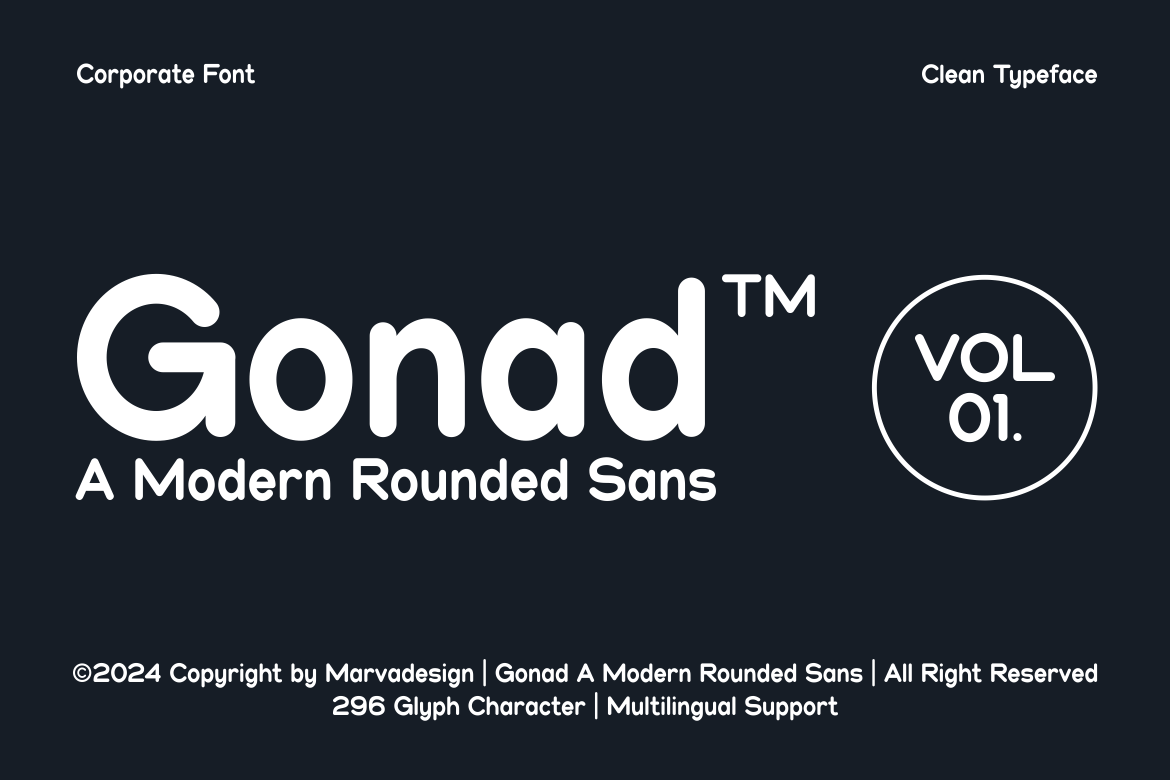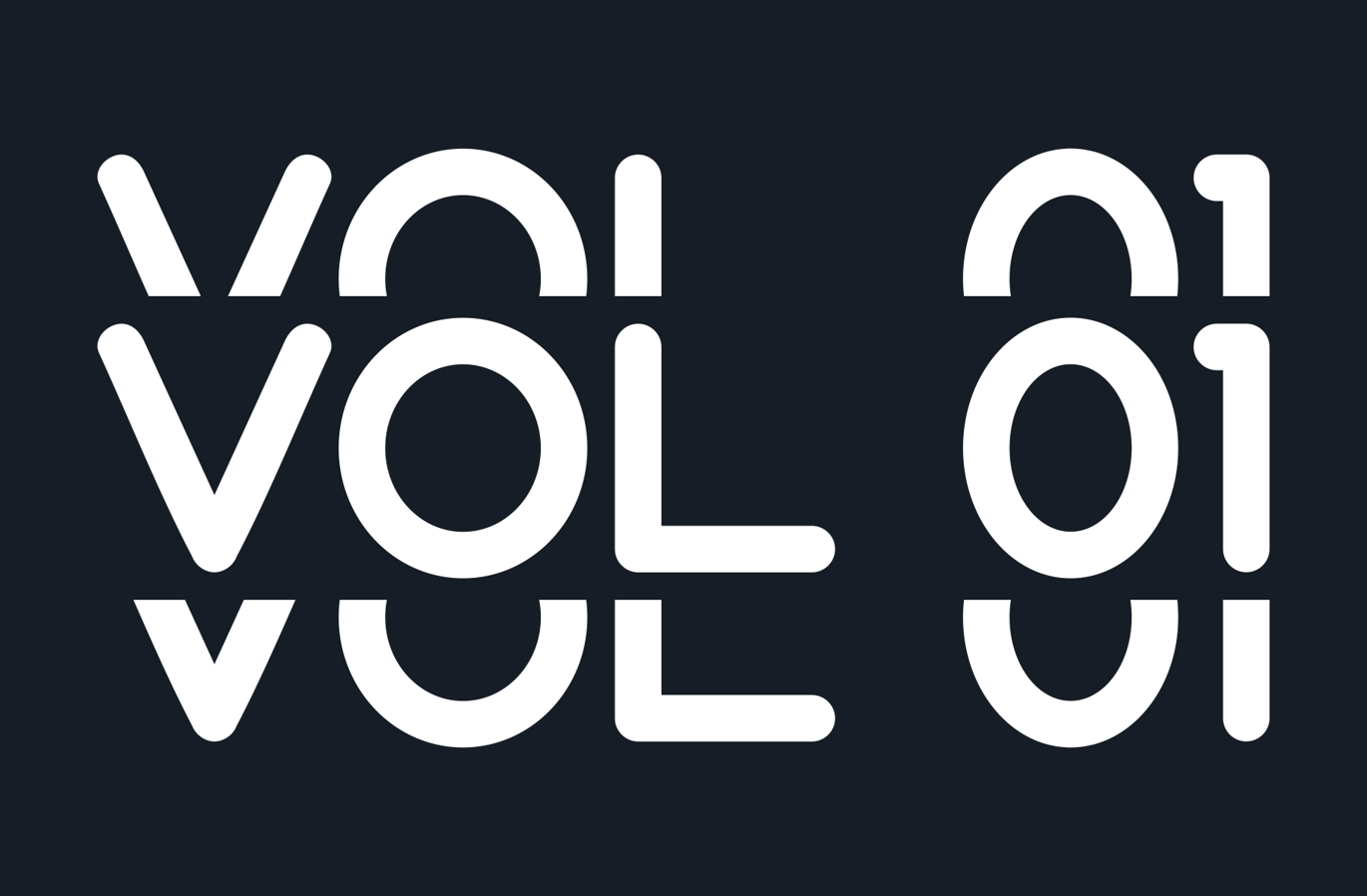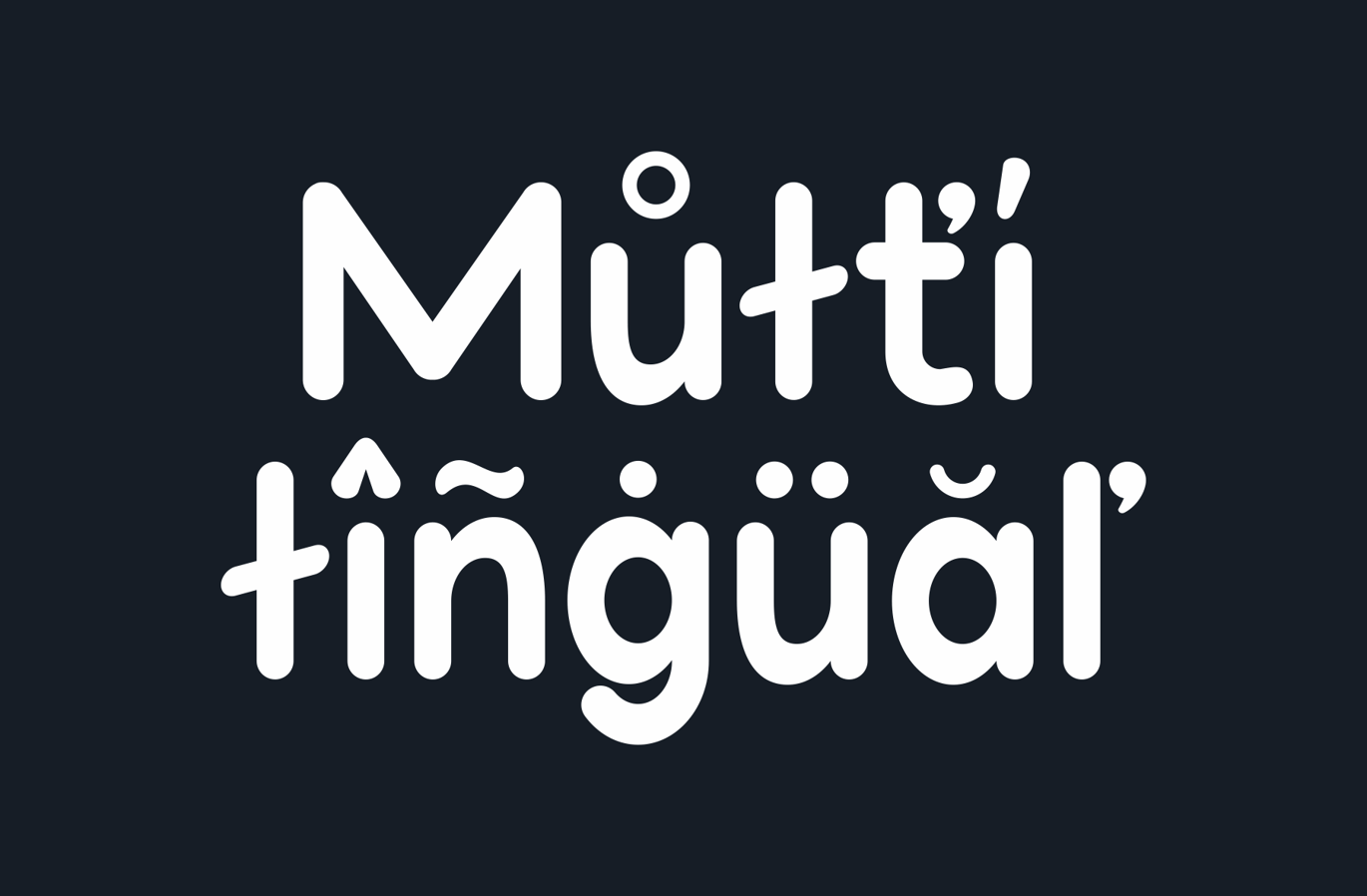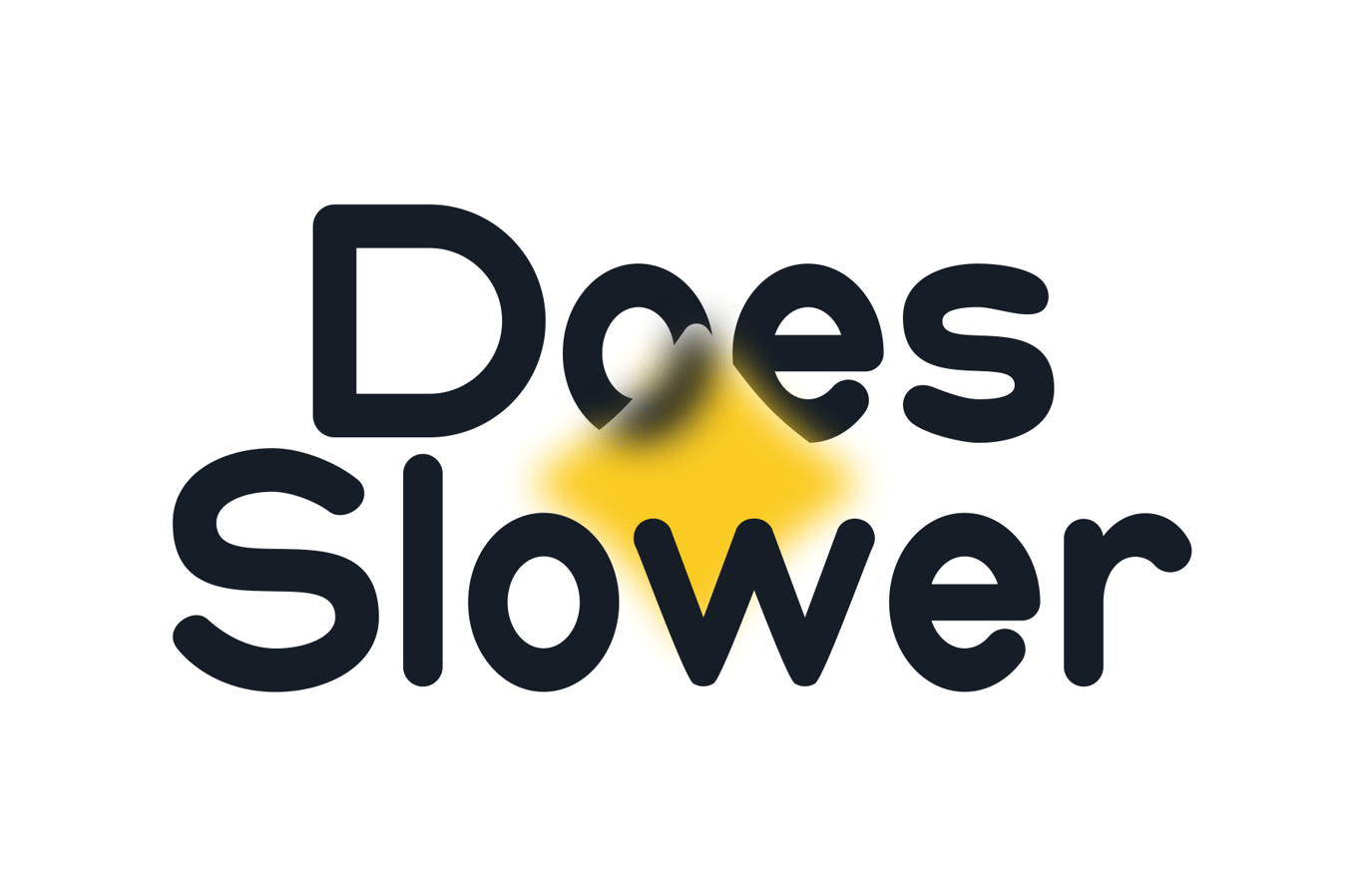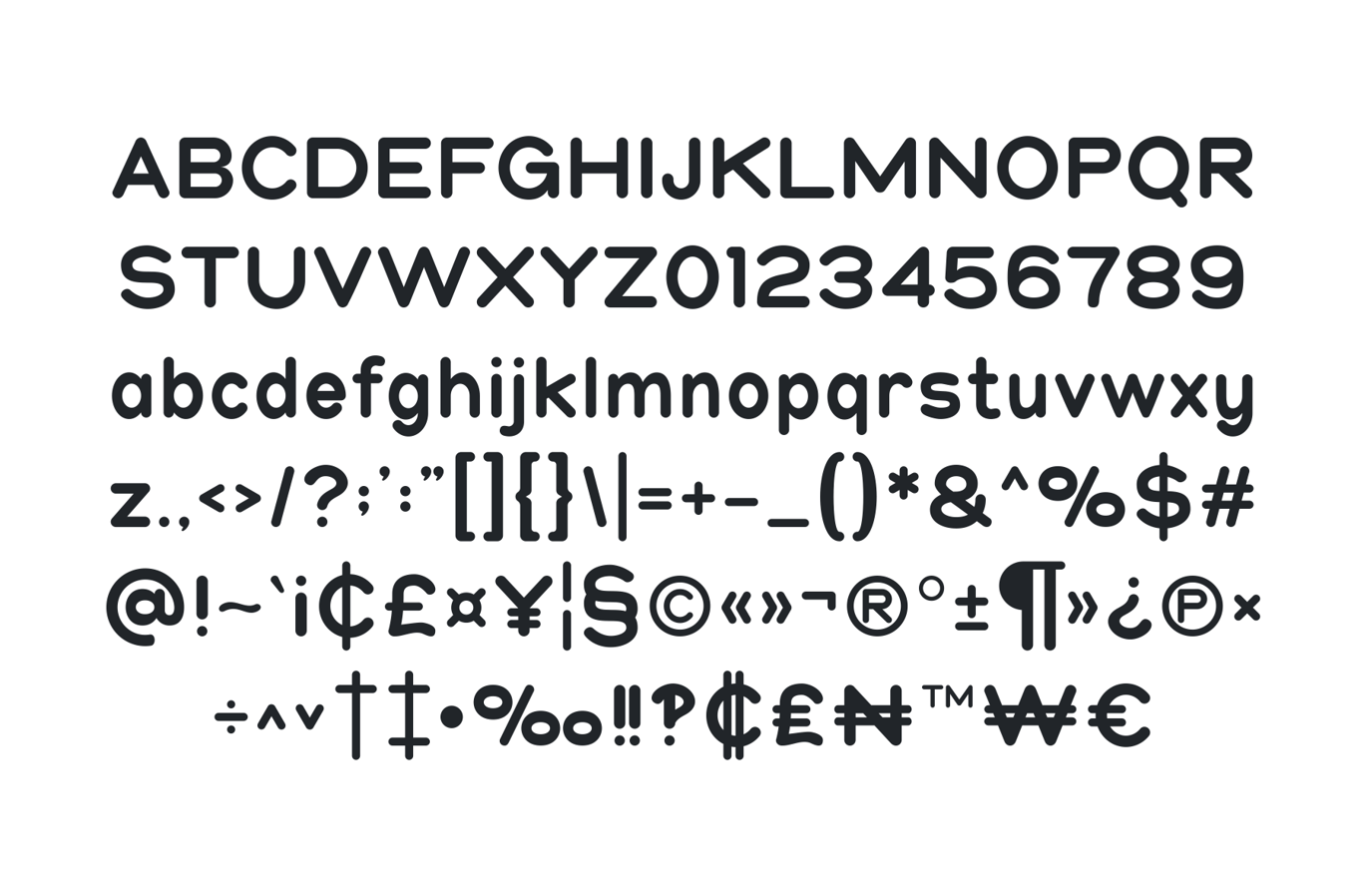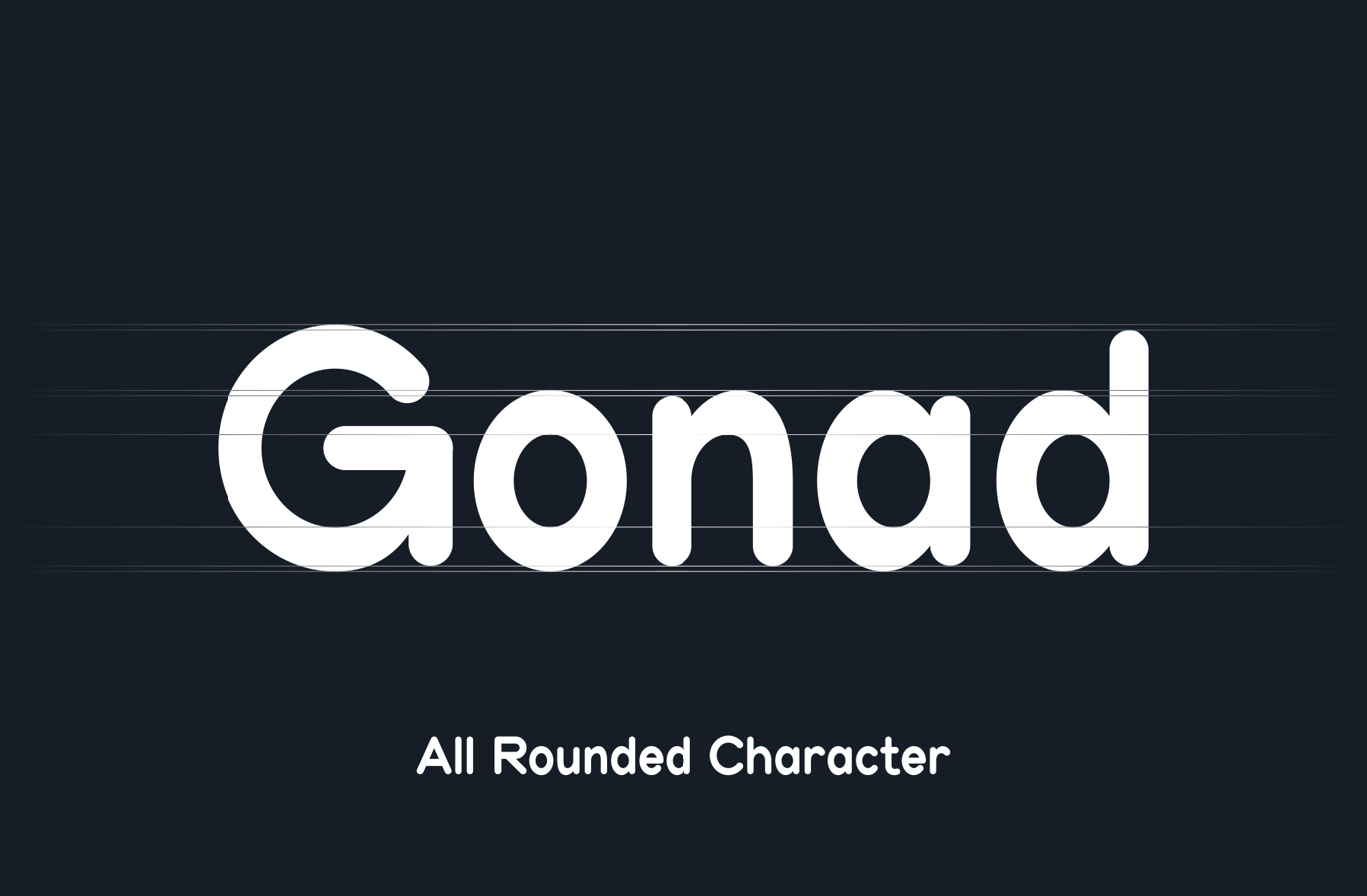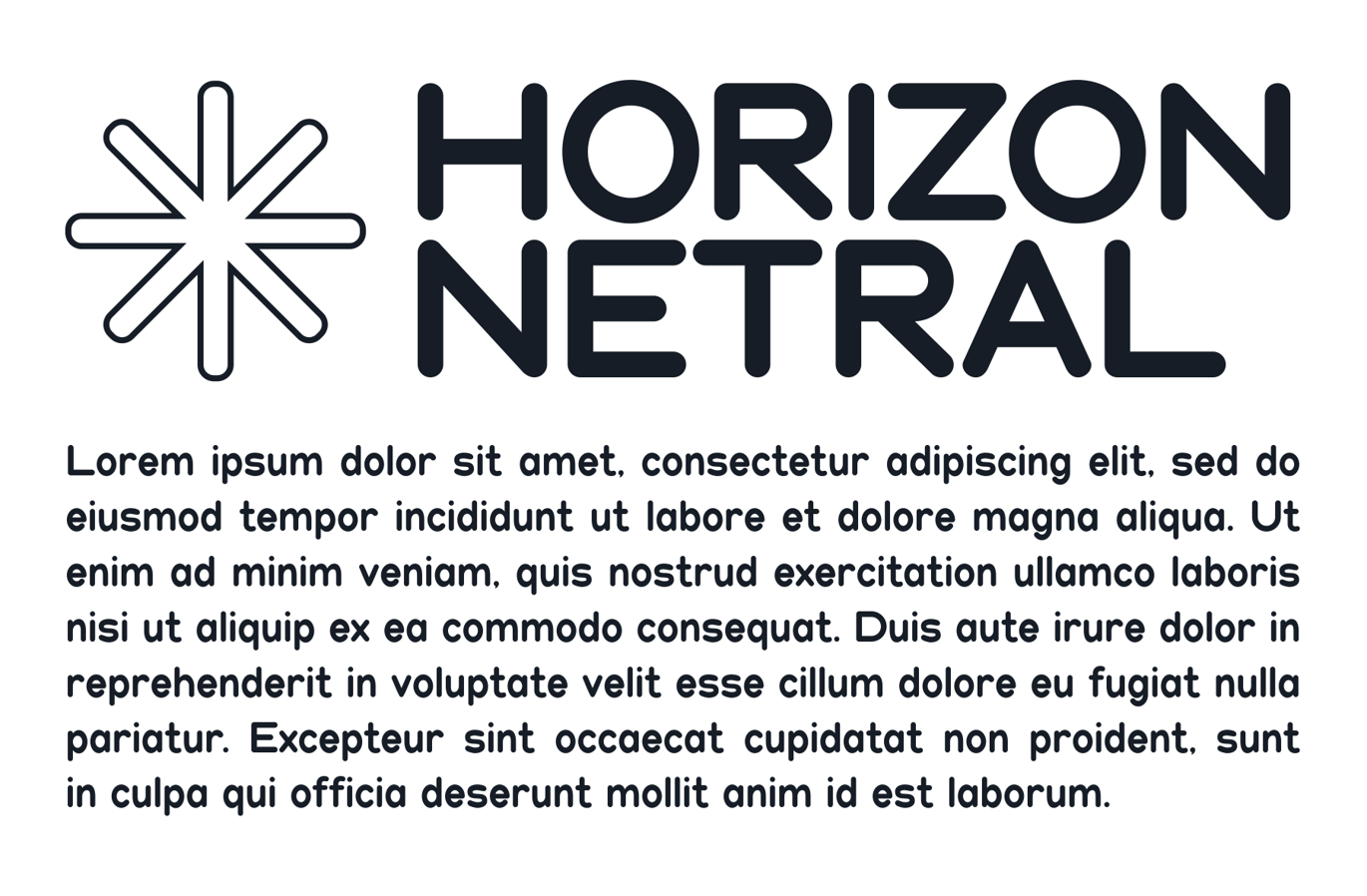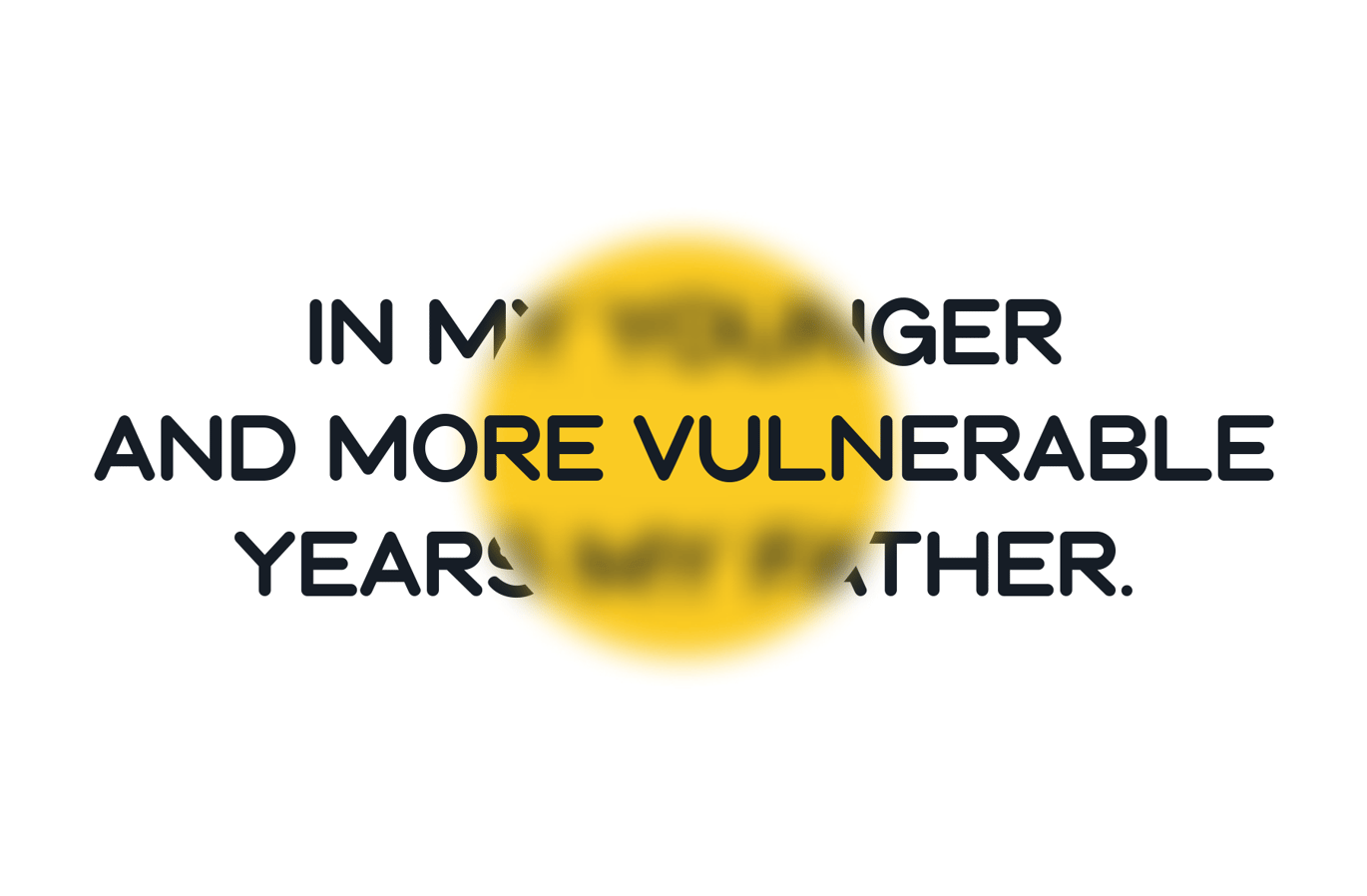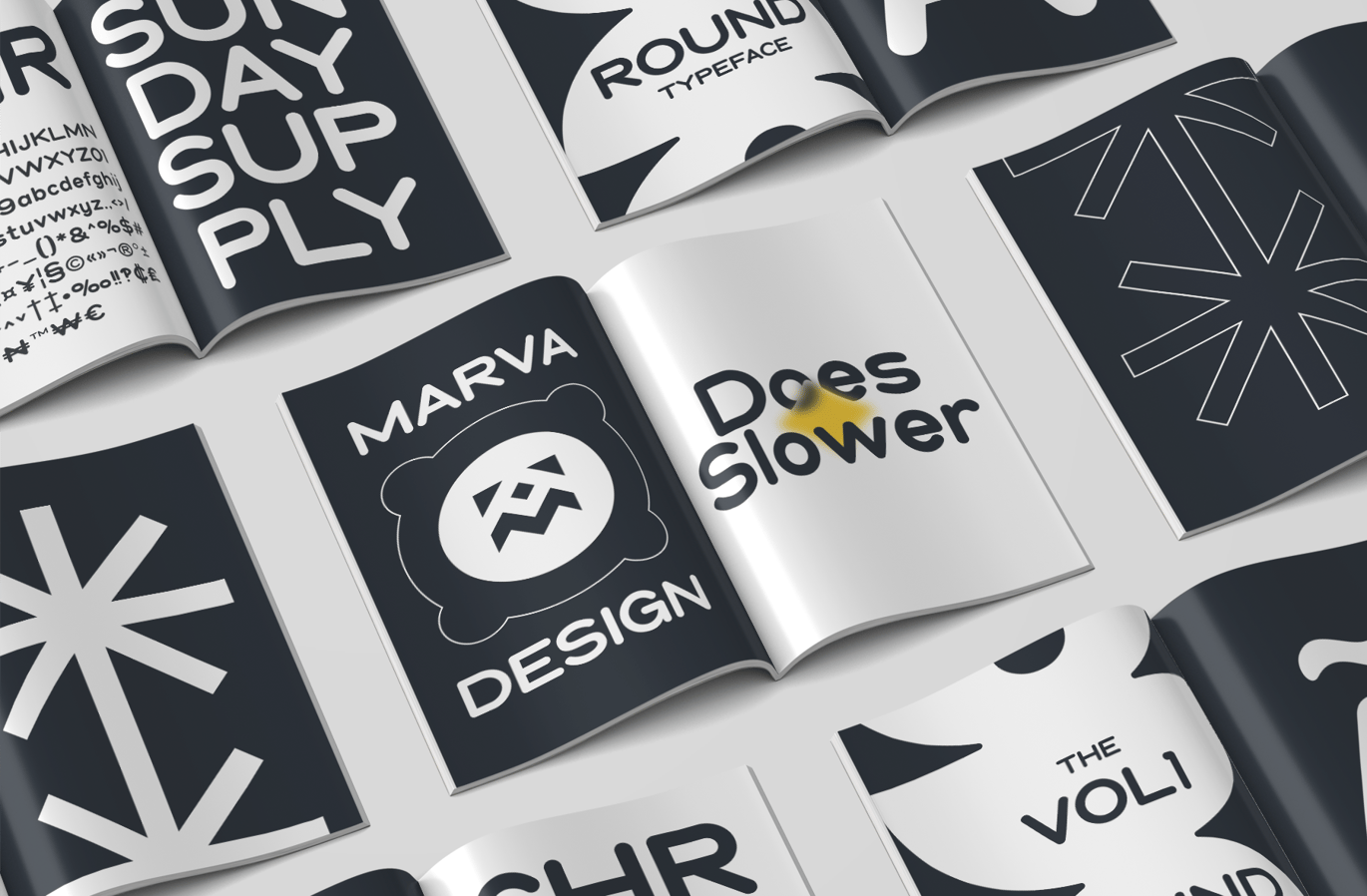
Gonad – Rounded Font
Introducing Gonad With a round and soft style, this font gives a friendly but still professional impression. Its clean lines and proportions make it suitable for a variety of purposes, from websites to product design and brand identity. Good readability ensures your message can be conveyed clearly and easily understood by the audience. This font is the perfect choice to create a modern and elegant look for your branding projects. Offers a harmonious balance between professionalism and contemporary aesthetics. It’s clean lines and balanced proportions make it ideal for corporate branding